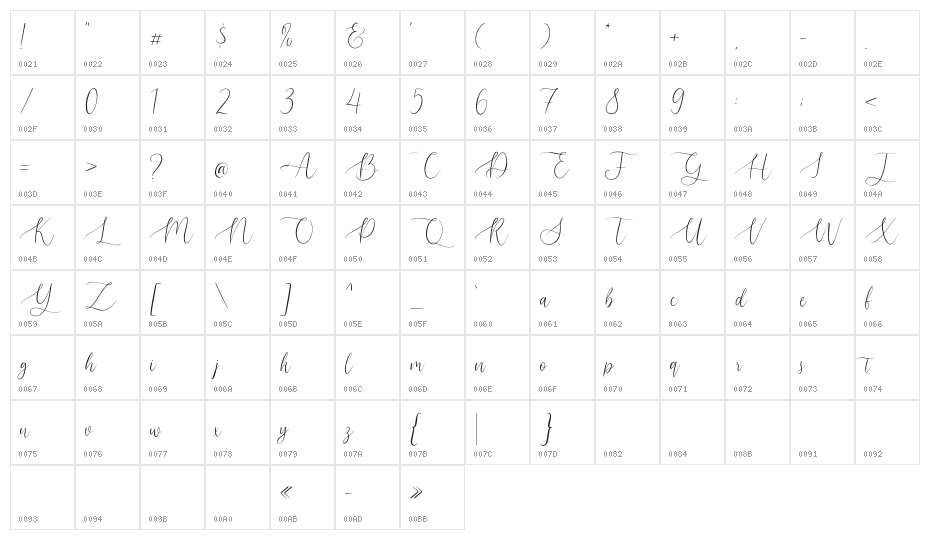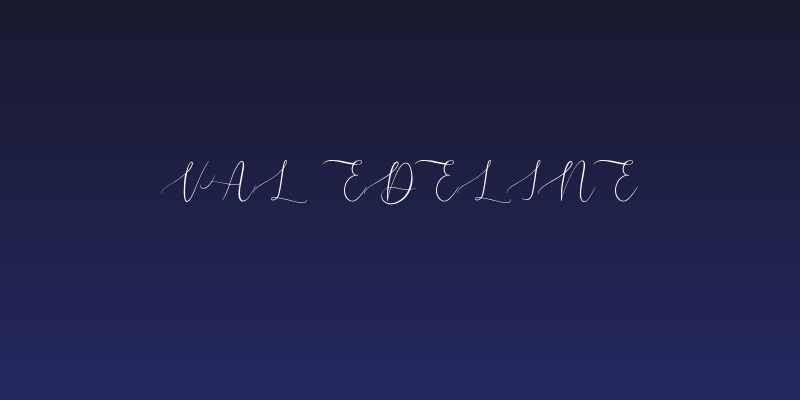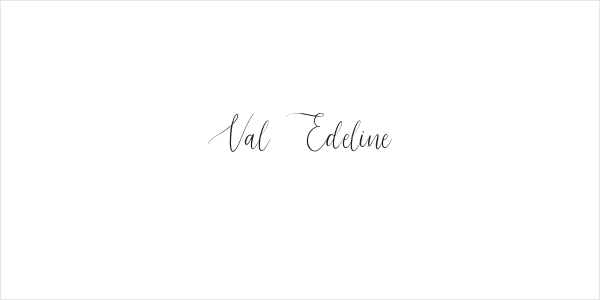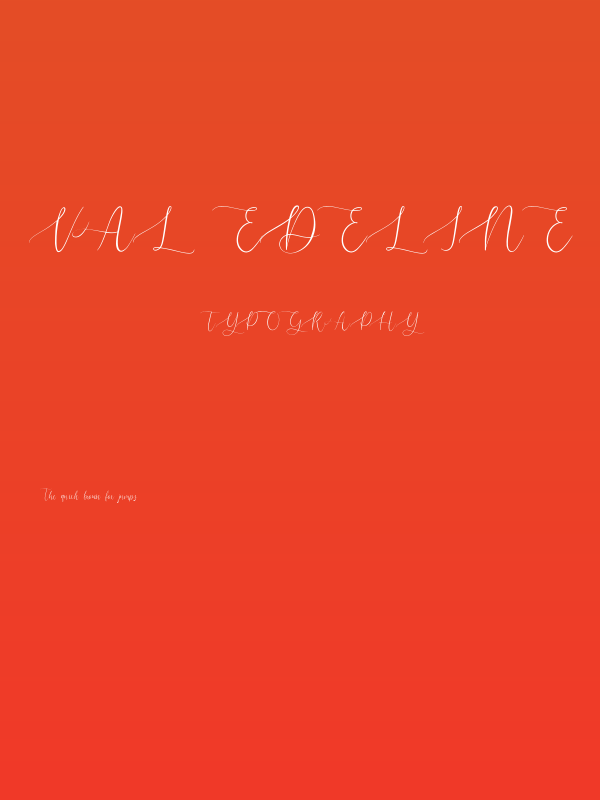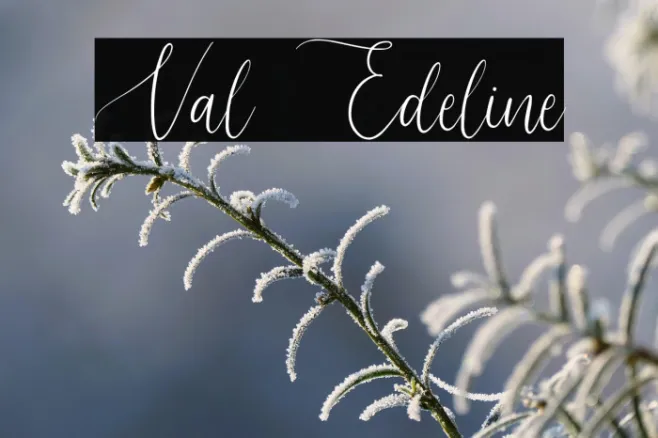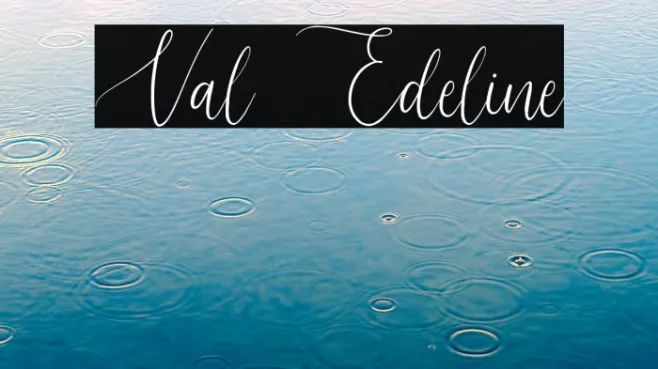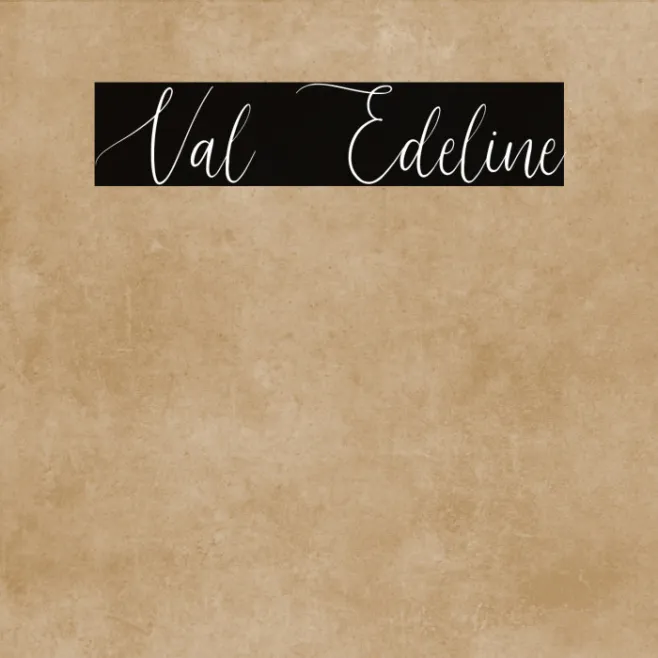
Val Edeline Font
Val Edeline Description
This elegant script font features a delicate and flowing design, characterized by its graceful curves and fluid strokes. The uppercase letters are intricately connected, creating a sense of continuity and movement. The lowercase letters maintain a consistent style, with smooth transitions and a slightly more relaxed form. The numerals are stylish and maintain the font's overall aesthetic, while the special characters add a touch of sophistication. This font exudes a sense of elegance and refinement, making it ideal for formal invitations, branding, and decorative purposes.
| Overall Style | Elegant, Decorative |
| Use Case | Invitations, Branding, Decorative |
| Proposed Projects | Ideal for wedding invitations, elegant branding, decorative signage, and sophisticated stationery. |